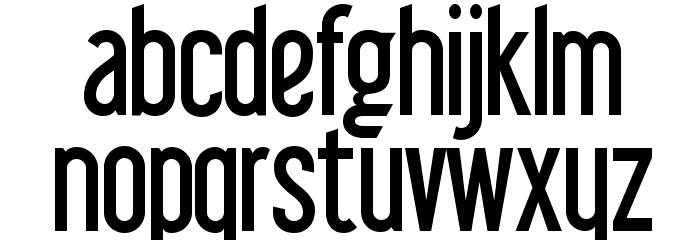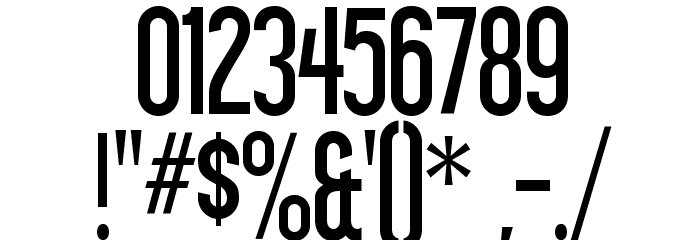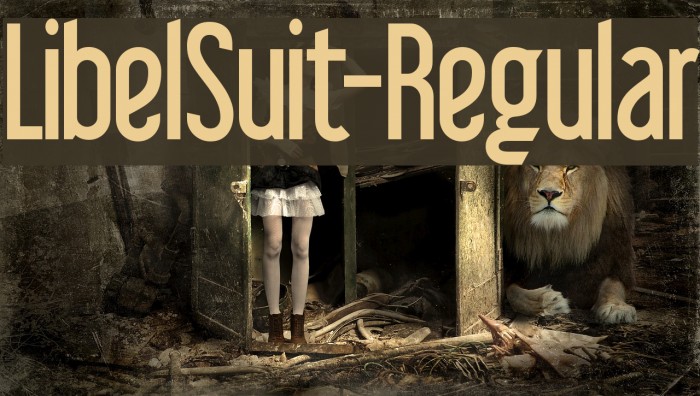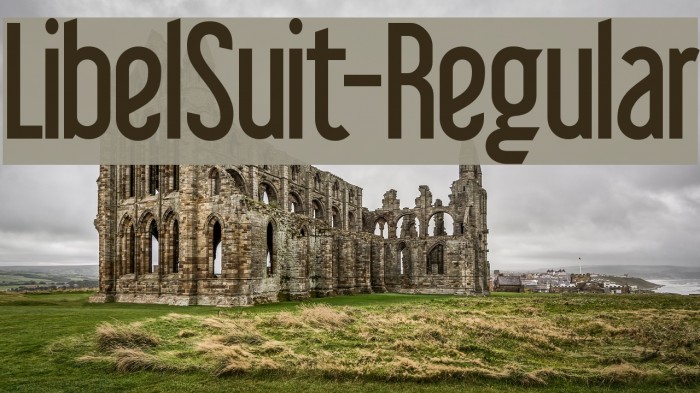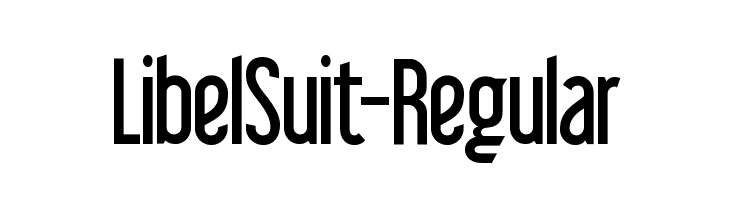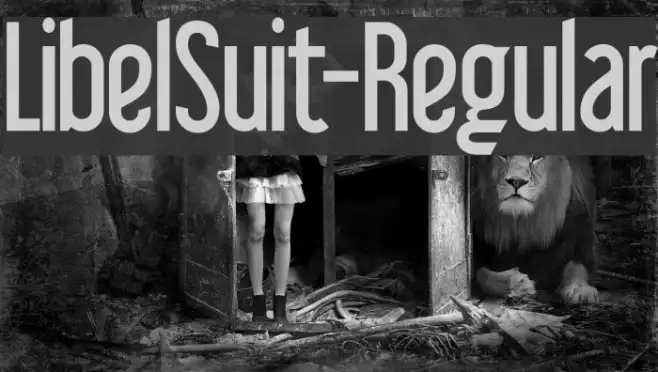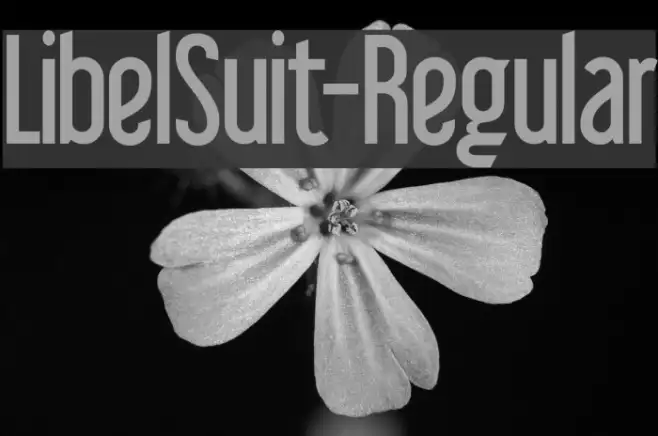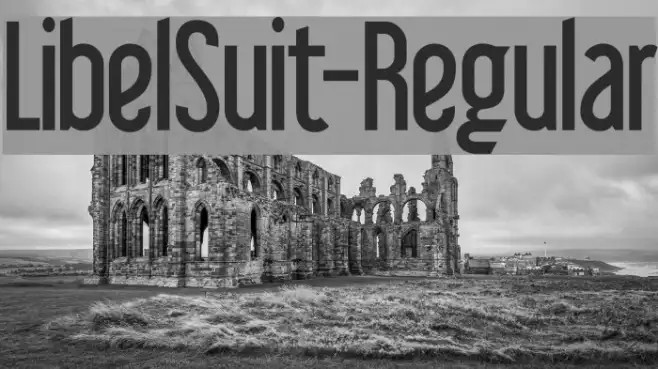
LibelSuit-Regular Font
This typeface features a bold and impactful design with tall, narrow characters that convey a sense of modernity and strength. The uppercase letters are particularly striking, with a uniform height and consistent stroke width that ensures readability even at smaller sizes. The lowercase letters maintain the same narrow proportions, creating a cohesive look across text. Numbers are clear and distinct, making them suitable for data presentation. Special characters are well-integrated, maintaining the overall aesthetic. The font's clean lines and lack of serifs contribute to its contemporary feel, making it ideal for projects that require a strong visual presence.
A bold, modern typeface with tall, narrow characters and a clean, sans-serif design.
- Proposed Projects: Ideal for headlines, posters, branding, and advertising where a strong, modern impact is desired.